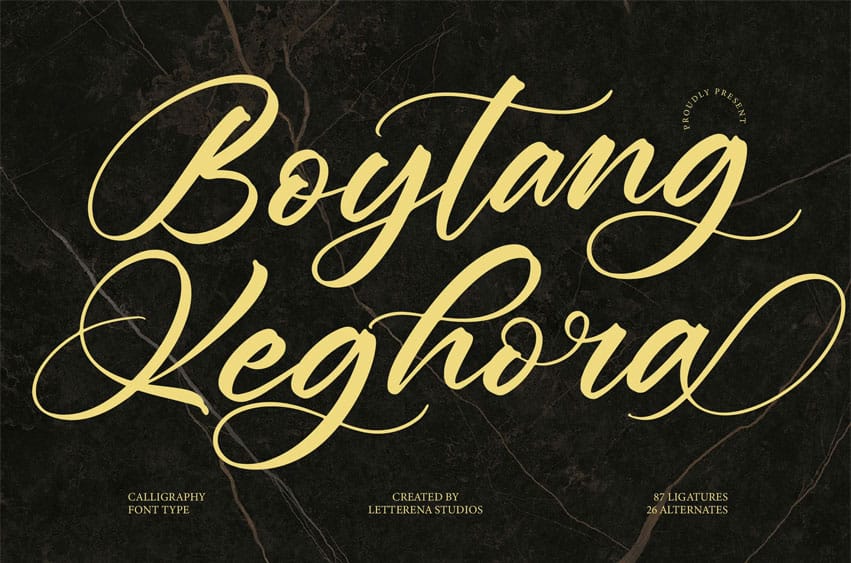
Boytang Keghora Font is suitable for complementing your digital and printed creative products. This font is perfect for posters, social media posts, branding, personal projects, etc.